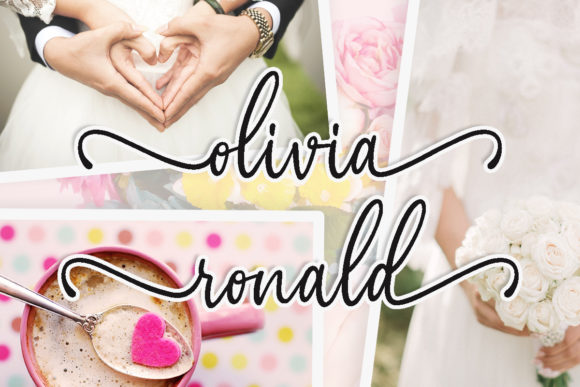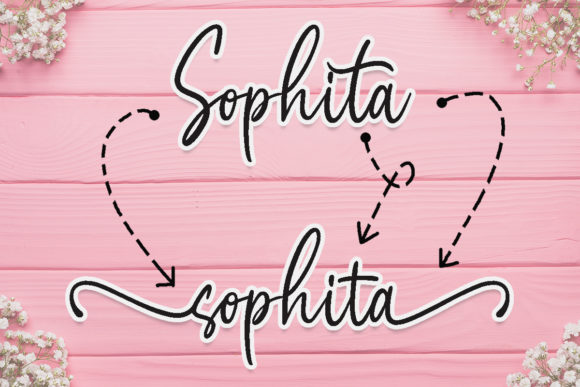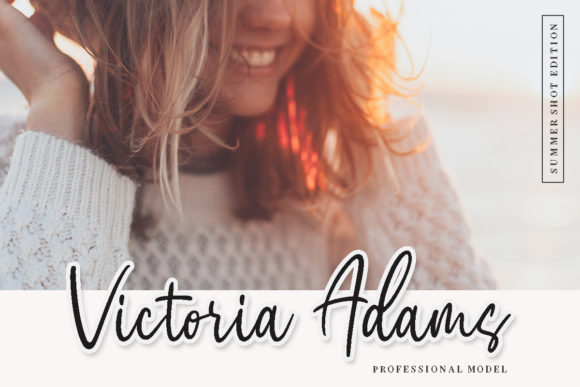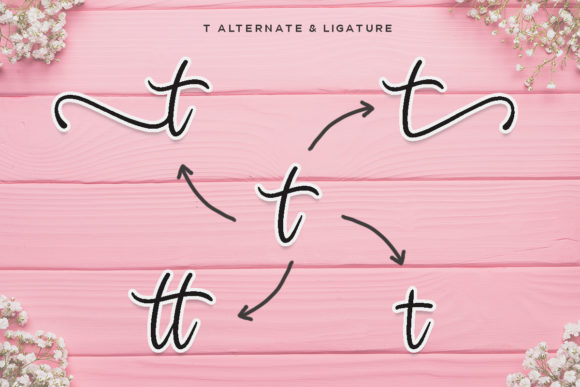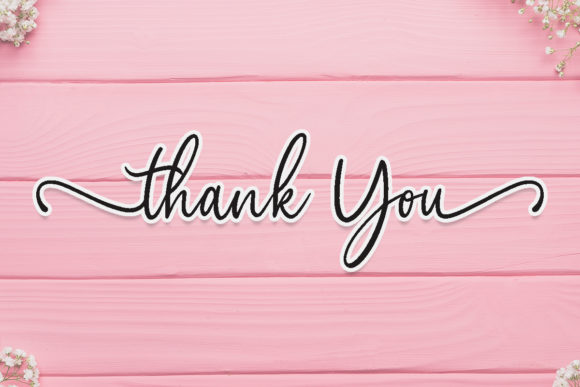
Introduction to Amelia Sophia Font
Do you ever have those moments when you’re browsing through design inspiration boards and suddenly, you stumble upon the perfect font that makes your creative project come alive? That’s exactly what happened to me when I discovered the Amelia Sophia Font. Its soft, hand-lettered script style is like a breath of fresh air for any design enthusiast, and I just can’t get enough of it!
As a designer, you’re always on the lookout for high-quality design resources that can help elevate your work and make it stand out. The Amelia Sophia Font is one such treasure, offering a wealth of special features like alternate glyphs and ligatures that can add an extra layer of sophistication to your designs. With its PUA encoding, you can access all the cute glyphs and swashes with ease, making it perfect for creating stunning designs on a transparent background.
Key Features of Amelia Sophia Font
- High-quality design resource for creative projects, ideal for digital art, graphic design, and typography.
- Transparent background, making it easy to place the font over any image or design without the risk of unwanted background elements.
- High-resolution design, suitable for use in print and digital media, including posters, flyers, and social media graphics.
- Unique, elegant, and sophisticated design, making it an excellent choice for a wide range of creative projects.
Honest Review: Amelia Sophia Font
I recently stumbled upon the Amelia Sophia Font and I must say it’s been a game-changer for my creative projects. The font’s elegant and sophisticated design makes it perfect for any project that requires a touch of sophistication.
One of the things that works well with this font is its ability to work seamlessly with a transparent background, allowing for a clean and modern look that elevates any design. Additionally, the high quality of the font makes it perfect for printing and digital use alike.
Here are some of the features that I love about the Amelia Sophia Font:
- Beautifully designed for a touch of elegance
- Works well with transparent backgrounds
- High-quality font suitable for both printing and digital use
However, there are a few limitations to consider. The font is only available in a few weights, which may limit its versatility for some projects. Additionally, the font may not be suitable for projects that require a bold, attention-grabbing font.
Overall, I’m thoroughly impressed with the Amelia Sophia Font and would highly recommend it to anyone looking for a high-quality, elegant font for their creative projects.
Tips for Getting the Most Out of Amelia Sophia Font
To maximize the potential of Amelia Sophia Font, use it in conjunction with other design elements to create a cohesive look. Experiment with different font sizes, colors, and arrangements to achieve the desired effect.